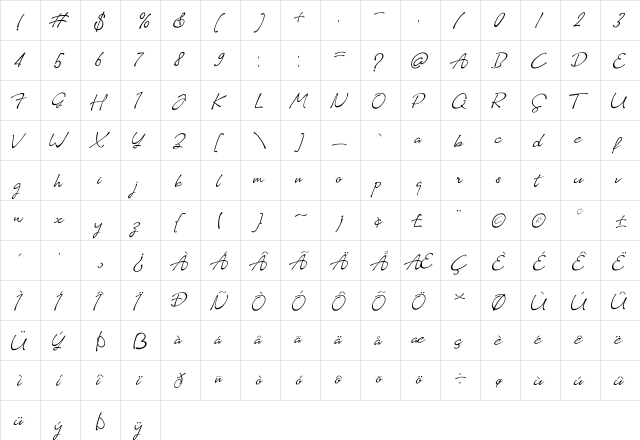
Almairah 02 Regular
| Foundry | Muhammad Romzul Khoir |
| Designer | Muhammad Romzul Khoir |
Design Context for Almairah 02 Typeface
Almairah 02 is a composed and adaptable typeface that performs quietly and consistently across a wide range of design contexts.